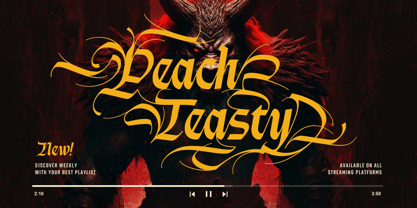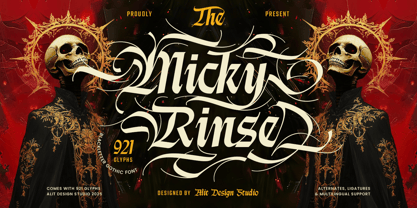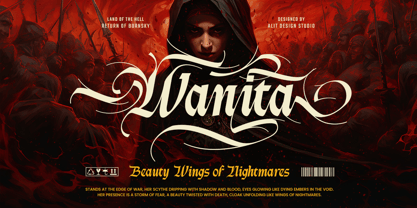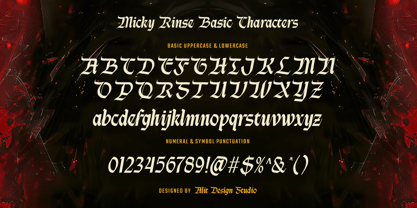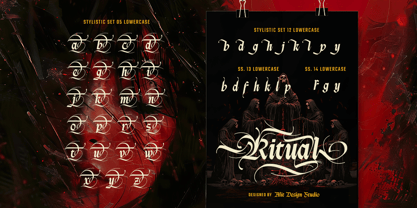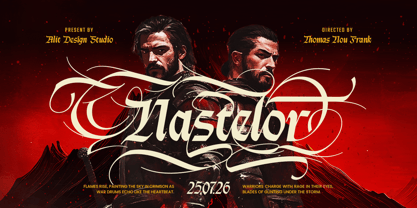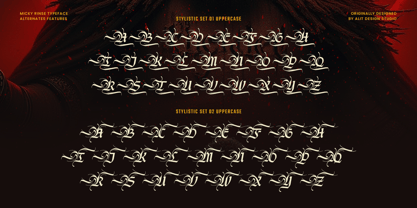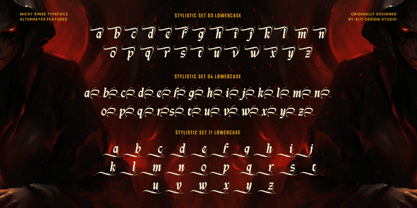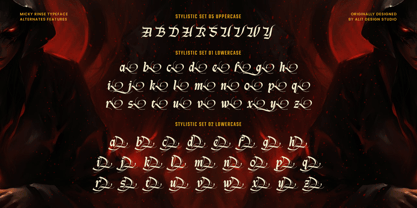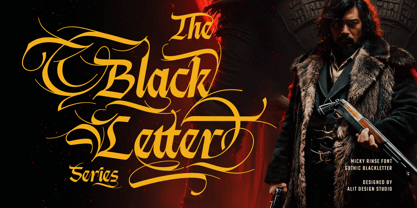
Micky Rinse
by Alit Design
The Micky Rinse Font Family was designed by Alit Suarnegara and published by Alit Design. Micky Rinse contains 1 styles.
Micky Rinse Typeface - Unleash the Savage Elegance Step into a realm where raw power and intricate artistry collide. Introducing Micky Rinse, a blackletter typeface that defies convention and breathes a fierce, modern spirit into gothic tradition. Designed with meticulous attention to detail by Alit Design Studio, Micky Rinse is not just a font—it's a statement. With its razor-sharp edges, dramatic swashes, and aggressive yet elegant flow, Micky Rinse captures the rebellious soul of tattoo culture, the raw energy of heavy metal, and the dark allure of epic fantasy. Each letter is crafted to command attention, making it the ultimate tool for projects that demand a bold and unforgettable identity. Micky Rinse is a powerhouse of creative possibilities, packed with an incredible 921 glyphs. Dive into a treasure trove of stylistic alternates, ligatures, and decorative elements that allow you to customize your text limitlessly. Whether you're designing a menacing logo, an immersive movie poster, or a piece of statement apparel, this typeface gives you the freedom to create something truly unique and powerful. Key Features: A Massive Arsenal of Glyphs: With over 921 glyphs, the possibilities for customization are endless. Extensive Stylistic Alternates: Multiple stylistic sets for both uppercase and lowercase letters give you complete creative control. Powerful Ligatures & Swashes: Create stunning, seamless connections and dramatic flourishes that make your text look like custom lettering. Full Character Set: Includes uppercase, lowercase, numerals, and all essential punctuation. Multilingual Support: Reach a global audience with comprehensive language support. design software and web platforms. Perfect For: Heavy Metal & Rock Band Logos Apparel & Merchandise Design Tattoo Artistry & Flash Sheets Movie Posters & Title Sequences Dark Fantasy Book Covers Gaming & Esport Branding Event Flyers for a Hardcore Vibe Micky Rinse isn't just a typeface; it's an attitude. It's for the creators who aren't afraid to be loud, to be different, and to leave a lasting mark. Unleash the savage elegance. Download Micky Rinse today and let your designs roar.
Designers: Alit Suarnegara
Publisher: Alit Design
Foundry: Alit Design
Design Owner: Alit Design